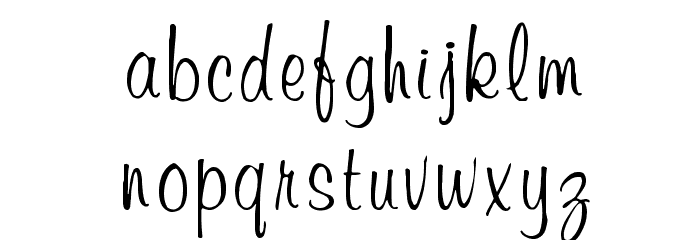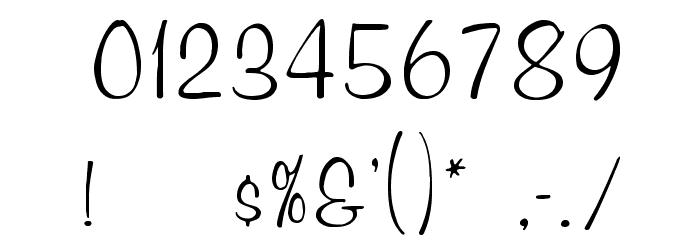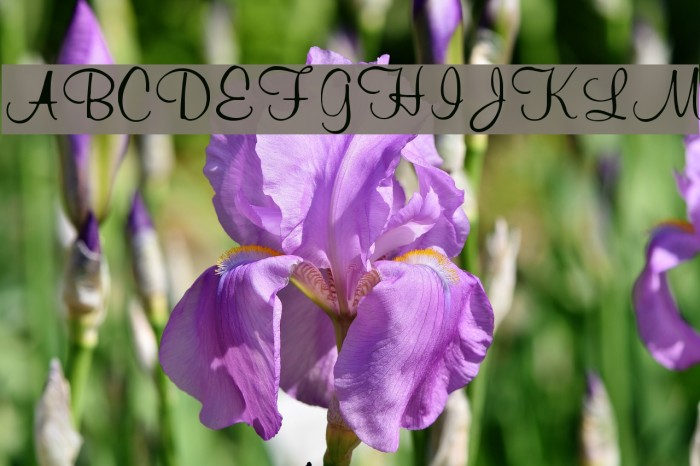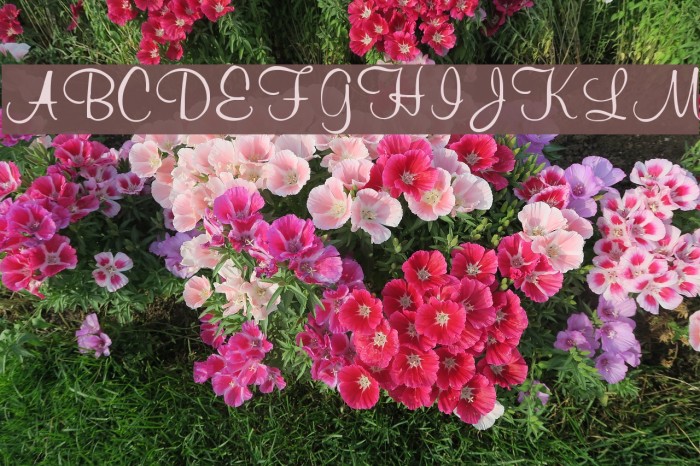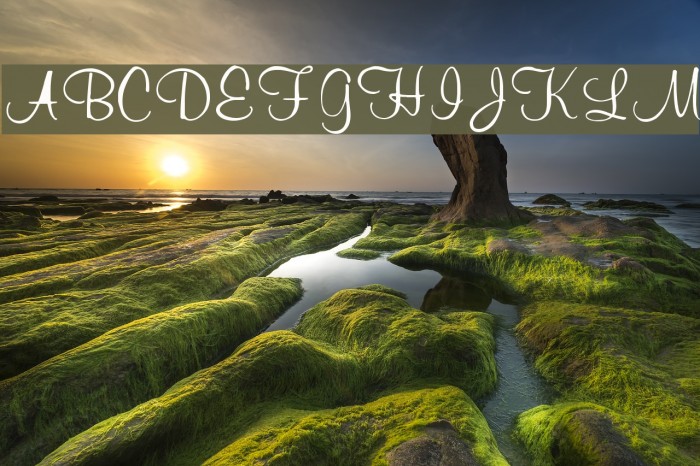
Muriel Font
This font features a charming and elegant script style with a handwritten appearance. The uppercase letters are gracefully curved, with a slight slant that adds a touch of sophistication. The lowercase letters maintain a consistent flow, enhancing readability while retaining a personal touch. Numbers are clear and rounded, complementing the overall aesthetic. Special characters are thoughtfully designed to match the font's fluidity, making it versatile for various applications. The font's playful yet refined nature makes it suitable for creative projects that require a personal and artistic flair.
A charming script font with an elegant, handwritten style.
- Proposed Projects: Ideal for wedding invitations, greeting cards, personal branding, and artistic projects.
- Use Case: Logos, Invitations, Artistic projects